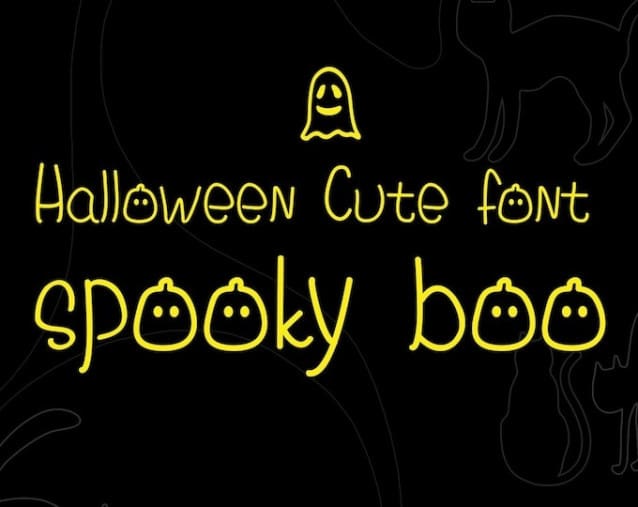
SD Boo Font
SD Boo Font is a spooky yet fun combination of two fonts that are perfect for a Halloween theme. This font will add a spooky feel to any October craft!